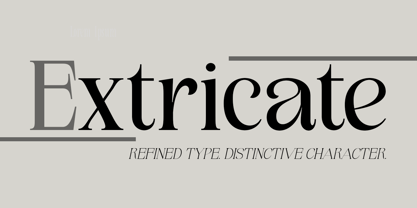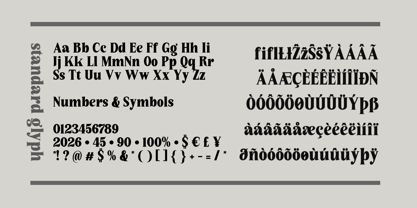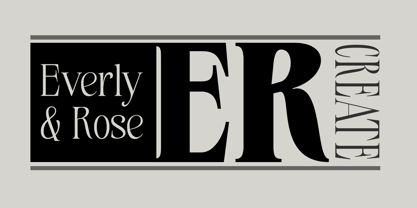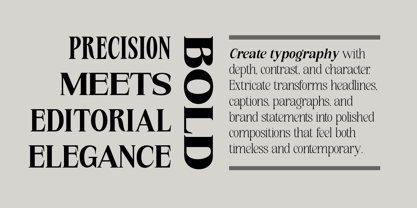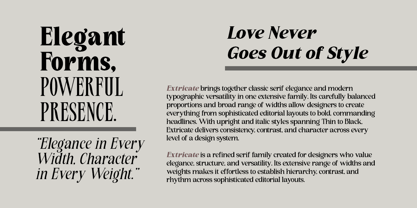
Extricate
Extricate — Serif Typeface Family
Extricate is a sophisticated and highly versatile serif typeface family designed to bring elegance, authority, and editorial character to both display and text applications. With 180 fonts, Extricate offers an extensive range of widths and weights, giving designers exceptional flexibility for typography across branding, publishing, advertising, packaging, headlines, and digital design.
The family includes 9 width categories — Ultra Condensed, Extra Condensed, Semi Condensed, Normal, Semi Expanded, Extra Expanded, and Ultra Expanded — combined with a complete weight spectrum from Thin to Black. With 90 upright styles and 90 italic styles, Extricate provides a powerful typographic system for creating refined visual hierarchies and expressive layouts.
Its elegant serifs, balanced proportions, and extensive width selection make Extricate equally effective for dramatic headlines, luxury branding, editorial spreads, sophisticated logos, posters, and long-form typography. From delicate Thin weights to commanding Black styles, Extricate adapts effortlessly to both subtle and bold design directions.
Family Features
• 180 Font Styles
• 90 Upright + 90 Italic
• 8 Width Categories: Ultra Condensed, Extra Condensed, Semi Condensed, Normal, Semi Expanded, Extra Expanded, Ultra Expanded
• Weights: Thin to Black
• Elegant and sophisticated serif construction
• Excellent for editorial and display typography
• Suitable for branding, logos, packaging, posters, magazines, advertising, and web design
• Wide range of widths for flexible typographic composition